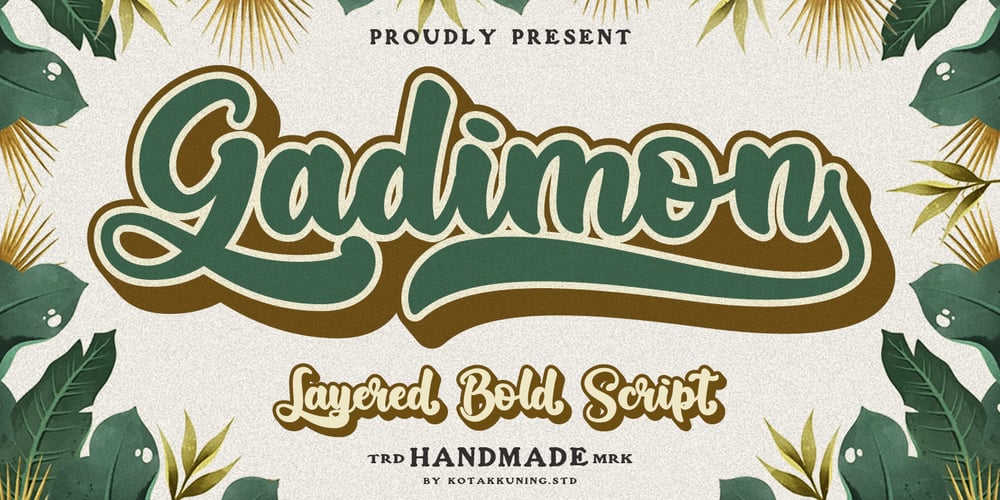
Gadimon Font Family was designed by Arif Dwi and published by Kotak Kuning Studio. Gadimon contains 4 styles and family package options. Introducing Gadimon Layered Bold Script. This font is used with layers method, so it can generate interesting fonts to see, you no longer need to worry about how to make effects on the text. Use the Gadimon Basic style for purposes without shadow effect and when spacing is important for a project. Gadimon is suitable to use as a logotype, product designs, labels, watermark, social media posts, apparel, invitations, signboards, sports club, motor/car, special events or anything that need handwriting taste. What you get: – Gadimon includes capital and lowercase letters, Alternates, and Ligatures – Numbers + punctuation – Foreign language support I highly recommend using a program that supports OpenType features and Glyphs panels such as Adobe Illustrator, Adobe Photoshop CC, Adobe InDesign, or CorelDraw, so you can see and access all Glyph variations. This font is encoded with Unicode PUA, which allows full access to all additional characters without having special design software. Mac users can use Font Book, and Windows users can use Character Map to view and copy one of the extra characters to paste into your favorite text editor/application. We hope you enjoy the font, please feel free to comment if you have any thoughts or feedback. Or simply send me a PM or email me at kotakkuningstudio@gmail.com. Thanks for purchasing and have fun!